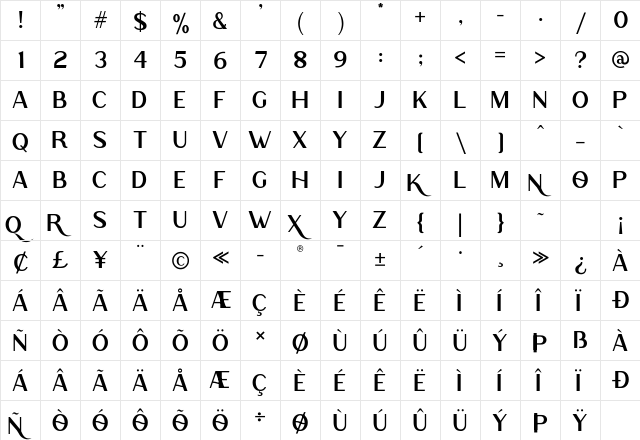
Rodano Regular
| Foundry | Kong Font |
| Designer | Kong Font |
Design Context for Rodano Typeface
Rodano offers clean, dependable letterforms without strong stylistic allegiance, making it a practical choice for designers who need flexibility.
Pro Tip: Pair Rodano with a font of contrasting weight or personality to build a more expressive typographic hierarchy.